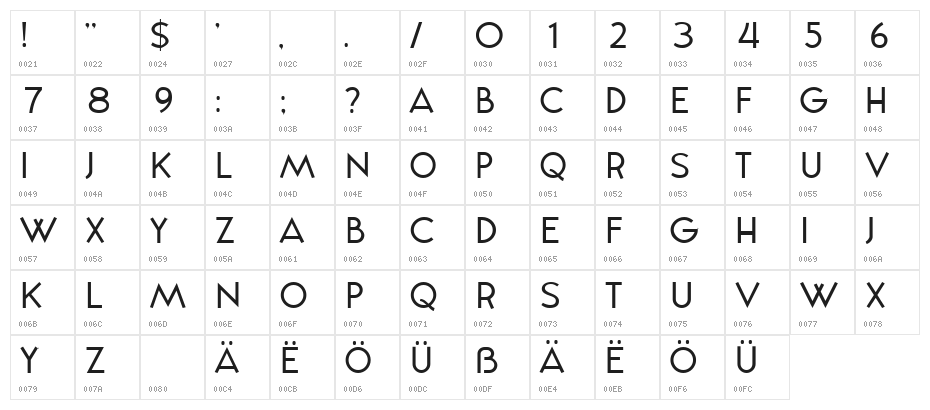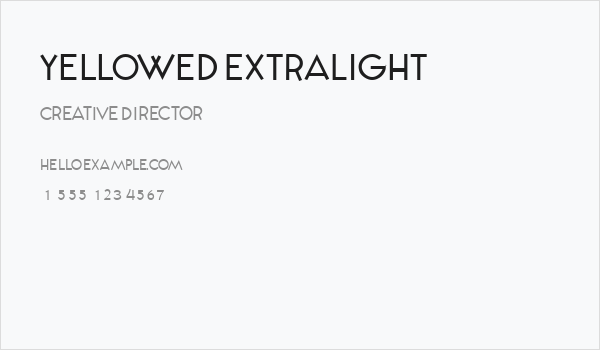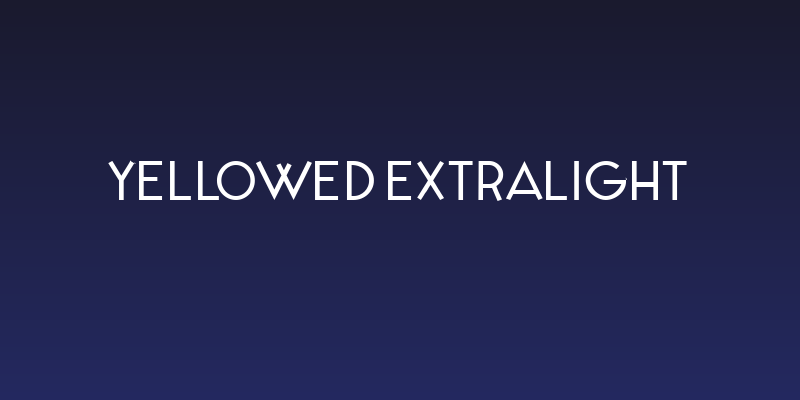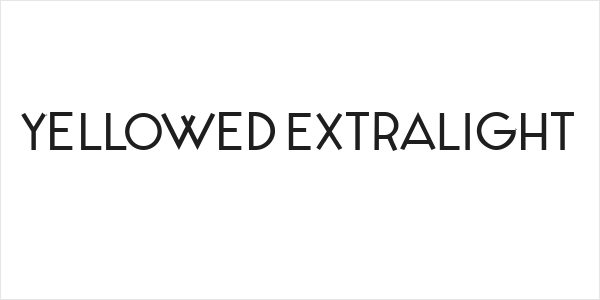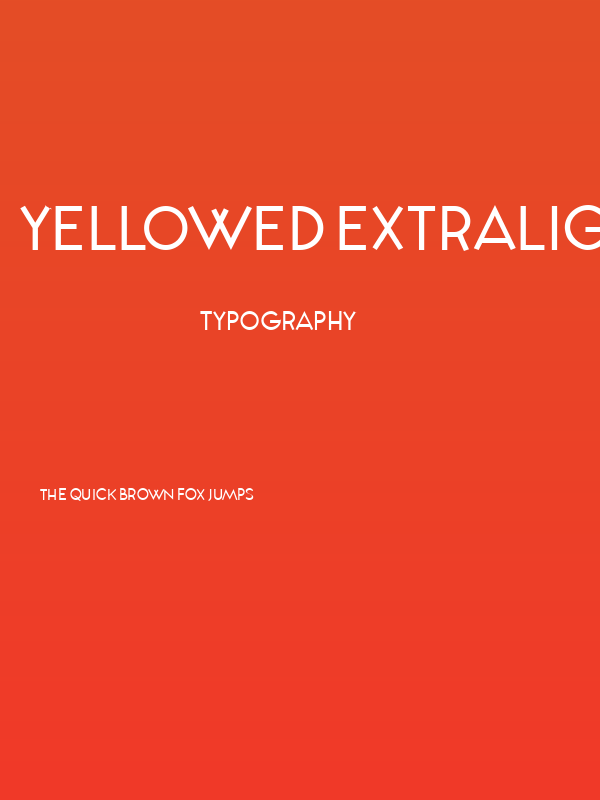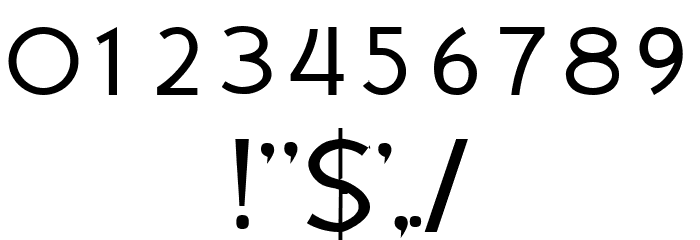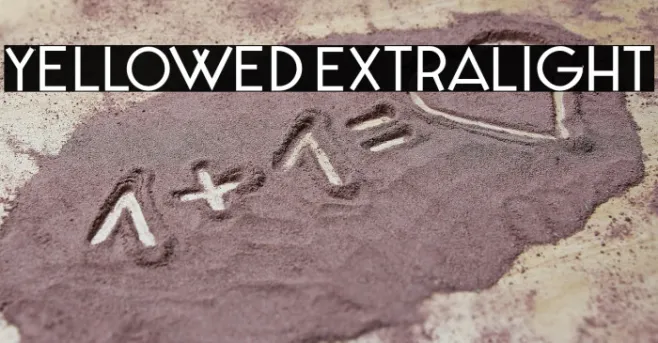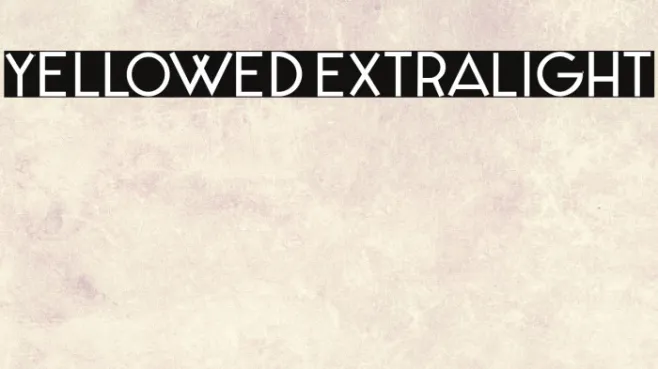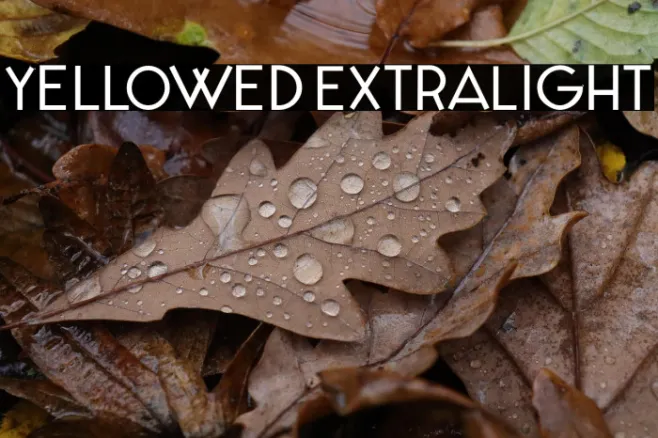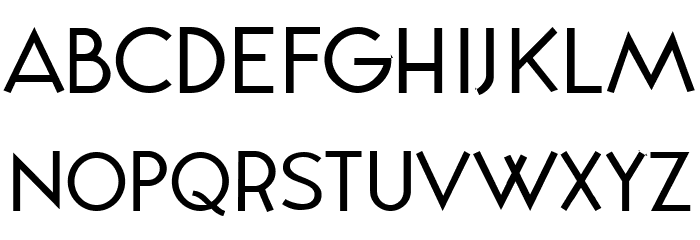
Yellowed ExtraLight Font
Yellowed ExtraLight Description
This font features a clean and modern sans-serif style with geometric influences. The characters are crafted with precision, showcasing a uniform stroke width that contributes to its minimalist aesthetic. The uppercase letters are bold and commanding, while the lowercase letters maintain a consistent structure, ensuring readability. The numerals are clear and straightforward, aligning well with the overall design. Special characters are distinct and harmonize with the font's geometric nature, making it versatile for various applications.